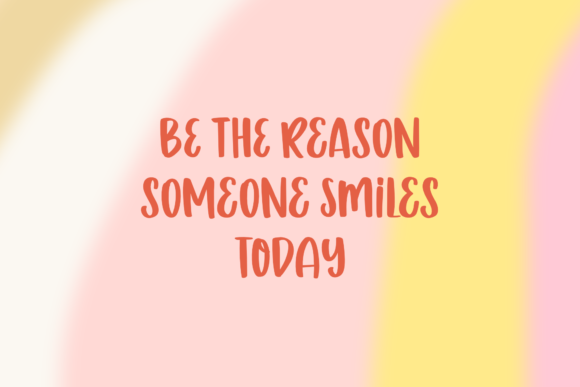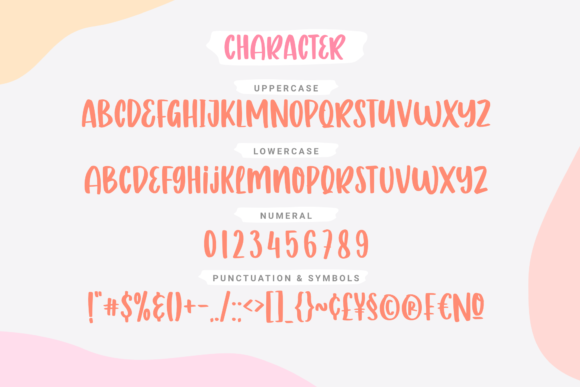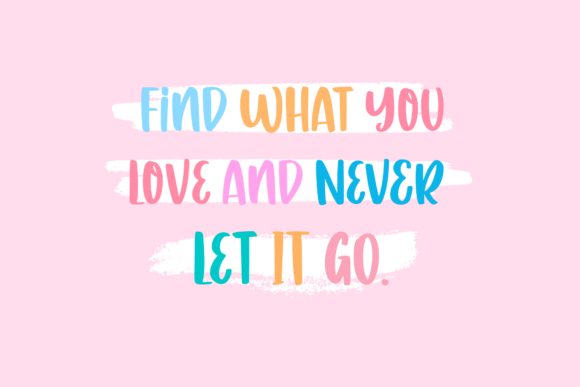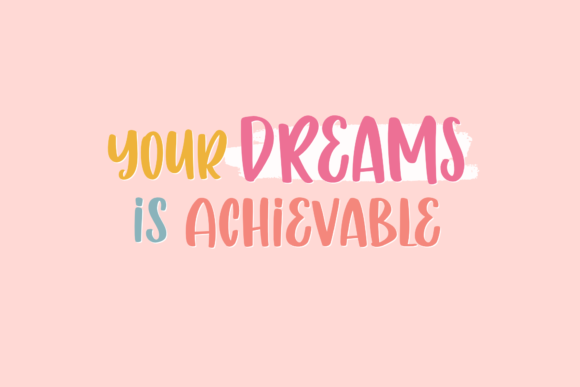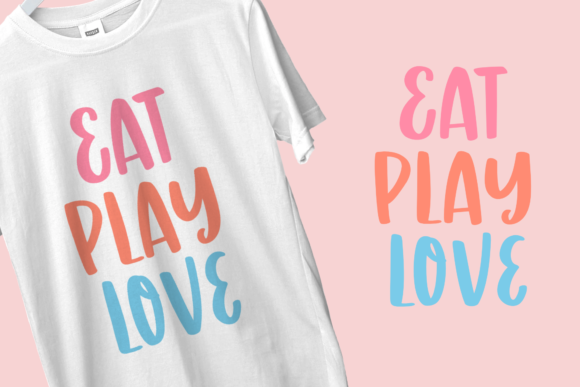
Introducing Friendly Sunshine Font: The Perfect Addition to Your Design Projects
Are you looking for a font that can add a touch of warmth and friendliness to your design projects? Look no further than the Friendly Sunshine Font. This cute, whimsical, and bold display font is designed to bring a smile to your face and make your projects stand out. With its incredibly friendly feel, Friendly Sunshine Font is the perfect choice for designers and crafters who want to add a personal touch to their work.
The Characteristics of Friendly Sunshine Font
Friendly Sunshine Font is a unique and eye-catching font that features a warm and jolly personality. Its bold and playful design makes it perfect for use in a variety of projects, from posters and flyers to social media graphics and crafts. The font’s friendly feel is sure to make your projects more approachable and engaging, and its versatility ensures that it can be used in a range of design contexts.
What Makes Friendly Sunshine Font So Special?
So, what sets Friendly Sunshine Font apart from other fonts? Here are just a few things that make it special:
- Cute and Whimsical Design: Friendly Sunshine Font features a playful and whimsical design that is sure to bring a smile to your face.
- Bold and Eye-Catching: The font’s bold design makes it perfect for use in display text, such as headings and titles.
- Warm and Friendly Feel: The font’s friendly feel makes it perfect for use in projects where you want to create a warm and approachable atmosphere.
- Endless Variations: With Friendly Sunshine Font, you can experiment with endless variations to create unique and personalized designs.
How to Use Friendly Sunshine Font in Your Design Projects
Friendly Sunshine Font is a versatile font that can be used in a variety of design projects. Here are just a few ideas to get you started:
- Posters and Flyers: Use Friendly Sunshine Font to create eye-catching posters and flyers that grab attention.
- Social Media Graphics: Add a personal touch to your social media graphics with Friendly Sunshine Font.
- Crafts and DIY Projects: Use Friendly Sunshine Font to add a touch of personality to your craft and DIY projects, such as handmade cards and gift tags.
- Branding and Packaging: Use Friendly Sunshine Font to create unique and memorable branding and packaging designs.
Tips for Getting the Most Out of Friendly Sunshine Font
Here are a few tips for getting the most out of Friendly Sunshine Font:
- Experiment with Different Sizes and Colors: Don’t be afraid to experiment with different sizes and colors to create unique and eye-catching designs.
- Pair with Other Fonts: Friendly Sunshine Font pairs well with other fonts, so don’t be afraid to experiment with different font combinations.
- Use in Combination with Images: Use Friendly Sunshine Font in combination with images to create visually appealing designs.
In conclusion, Friendly Sunshine Font is a unique and versatile font that is perfect for designers and crafters who want to add a touch of warmth and friendliness to their projects. With its cute, whimsical, and bold design, Friendly Sunshine Font is sure to make your projects stand out. So why not give it a try and see the difference it can make in your design projects?
Whether you’re a seasoned designer or a crafty DIY enthusiast, Friendly Sunshine Font is a great addition to your font collection. So go ahead, have fun with it, and explore its endless variations to create unique and personalized designs that showcase your personality and style.